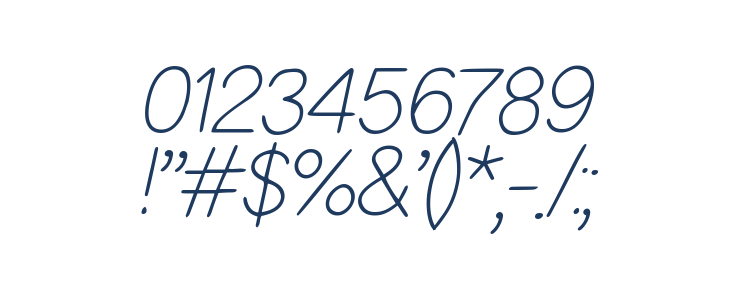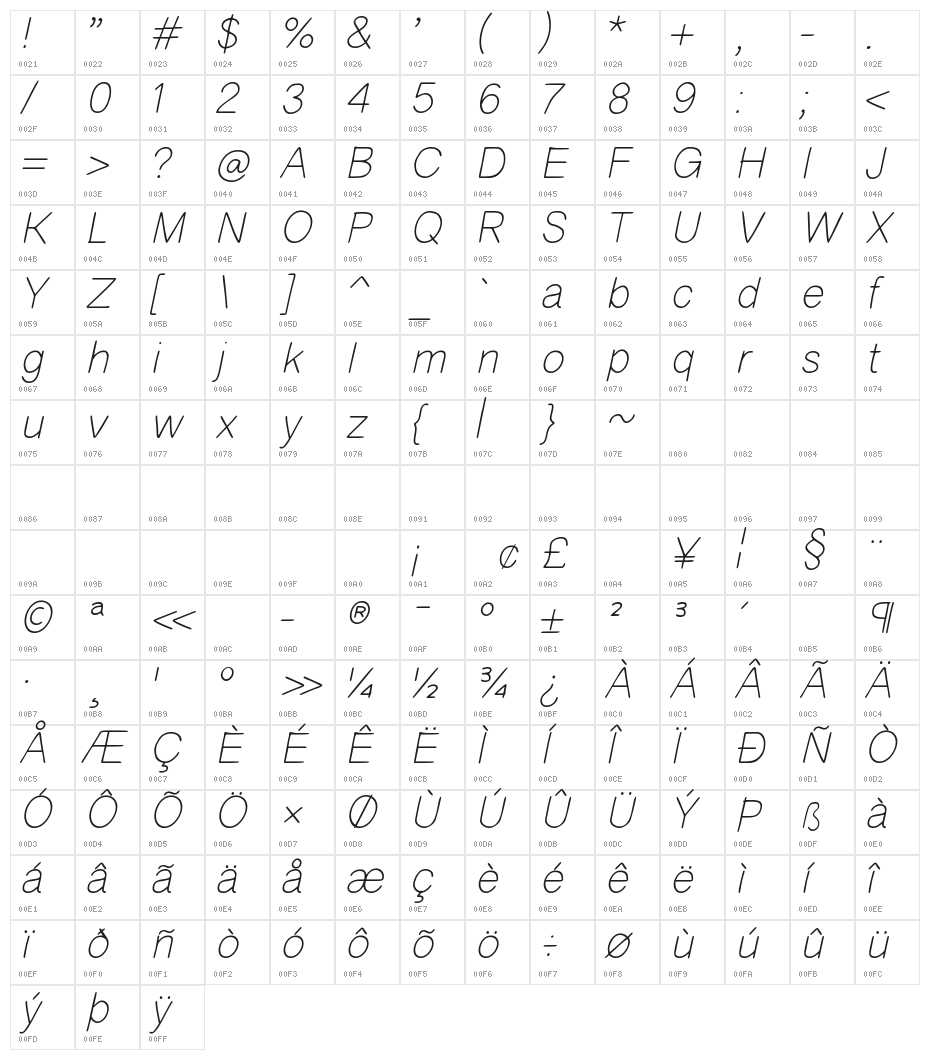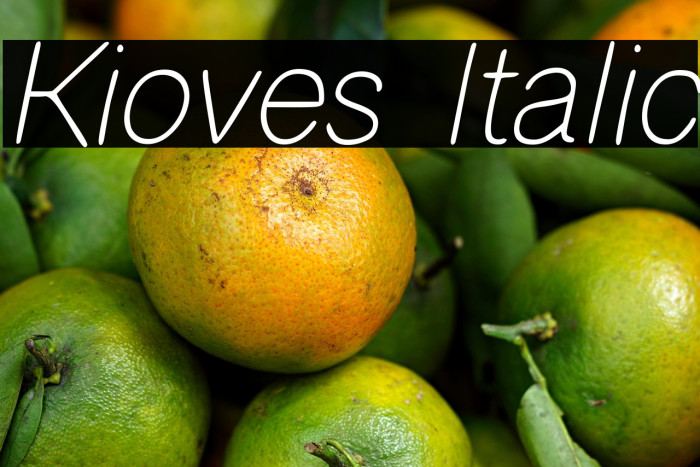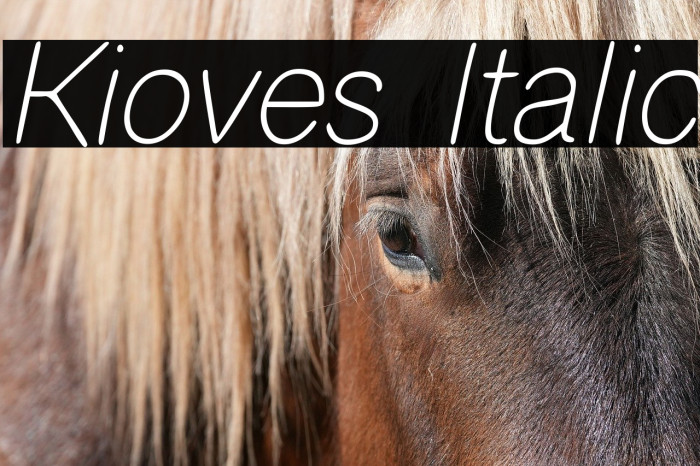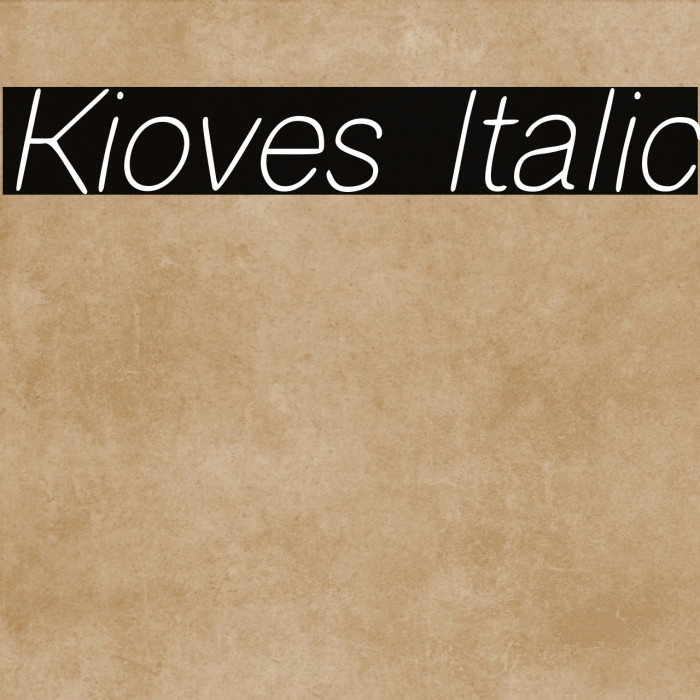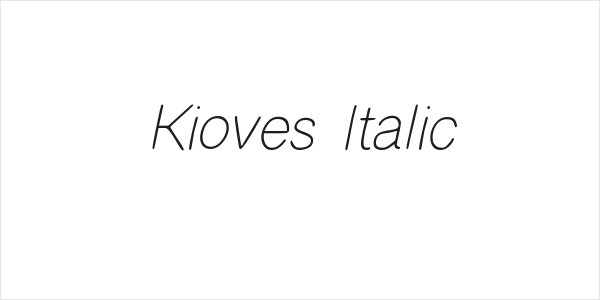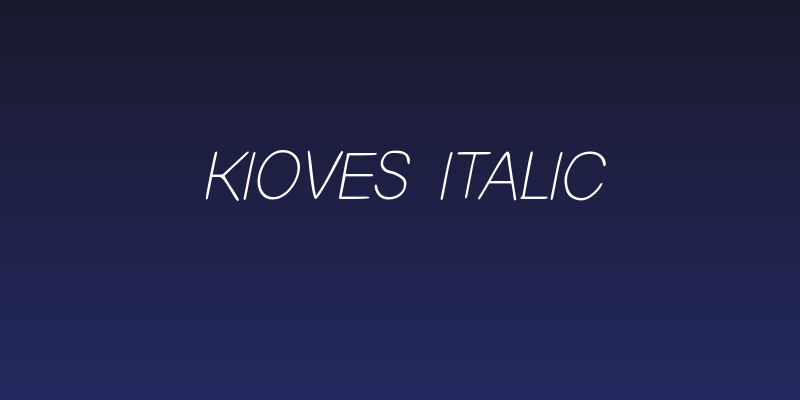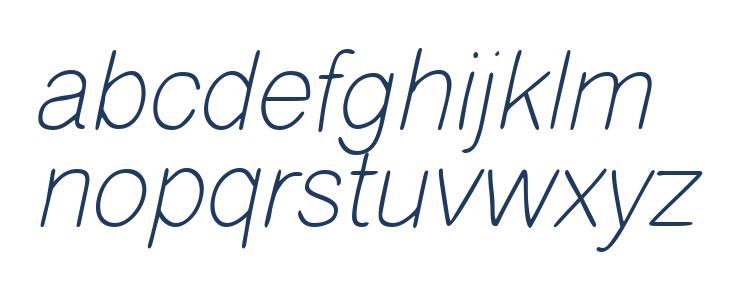
Kioves Italic Font
Kioves Italic Description
This font features a sleek, italicized design with smooth, flowing lines that convey a sense of elegance and modernity. The characters are slightly slanted, giving a dynamic and sophisticated appearance. The uppercase and lowercase letters maintain a consistent style, with rounded edges and a uniform stroke width that enhances readability. The numerals are clear and well-proportioned, complementing the overall aesthetic. Special characters are thoughtfully designed, maintaining the font's cohesive look. This font is versatile, suitable for both digital and print media, and can add a touch of refinement to any project.